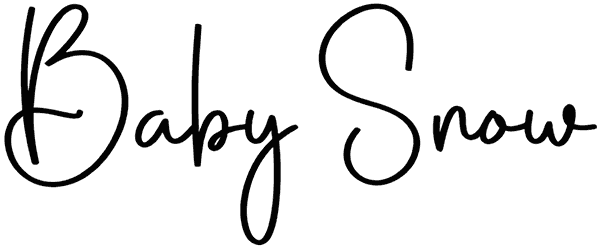
Delight Font
Are you looking for a different and more personal look? Check out the Resource Boy script font category. Well, let’s start with Delight, a delicate and refined font that changes the view of your content and takes your project to another level of satisfaction.
You get this freebie in two styles, and you get both of them with a complete collection of characters that support your work. This is one of the examples that you can find in the Resource Boy inventory.
Designed by: Perspectype Studio